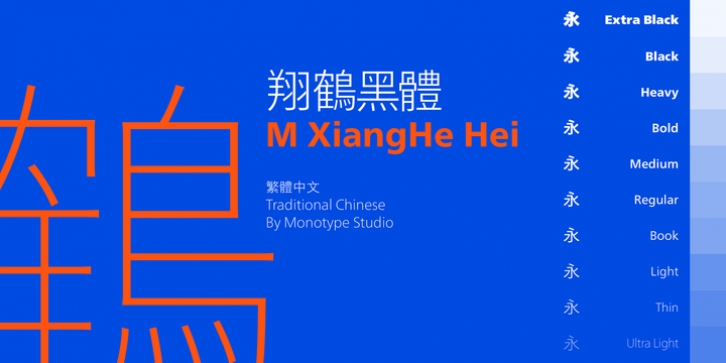
The M XiangHe Hei Traditional Chinese typeface merges traditional brush strokes with modern letterforms to carefully balance traditional calligraphy with humanist design. Named for the smooth movements of a flying crane, the M XiangHe Hei typeface is designed to glide across the page, and features strokes that are partly derived from the Kaishu calligraphic style – an everyday script which dates back hundreds of years.
M XiangHe Hei TC features Neue Frutiger for its Latin glyphs, and works harmoniously Neue Frutiger World and Monotype's CJK typefaces: Tazugane Gothic (Japanese) and Seol Sans (Korean). M XiangHe Hei TC is a great choice for global brands using sans serif Latin typefaces looking to maintain their visual identity, and communicate with a consistent tone of voice with Traditional Chinese.
The M XiangHe Hei TC fonts have over 19,000 glyphs, and support the BIG5/HKHCS and CP950 character sets for Traditional Chinese.